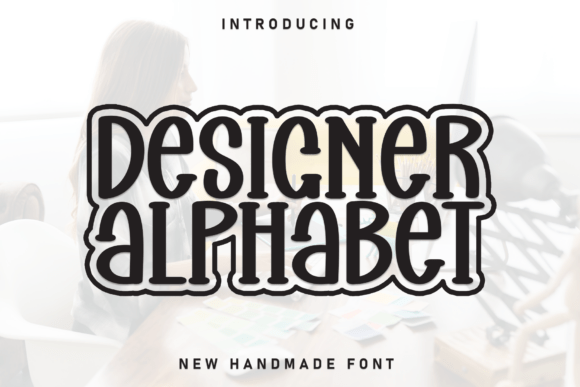
The Power of Handmade Typography: Introducing the Designer Alphabet Font
Have you ever stared at a blank page, waiting for inspiration to strike, only to be hit with a wave of creativity the moment you pick up a pencil and start doodling? That’s exactly what happens when you unleash the full potential of the Designer Alphabet Font – a bold, handmade display typeface that radiates creativity and character.
This versatile font is perfect for designers seeking to add a unique handcrafted touch to their work, from branding and posters to logos and social media graphics. With its hand-drawn charm, thick strokes, and outlined shadow effect, the Designer Alphabet Font brings a playful yet modern energy to any design project. Its clean curves paired with the artistic touch make it a reliable choice for designers aiming to infuse their work with originality and bold personality.
Designer Alphabet Font Key Features
- Font Family: The Designer Alphabet Font is available in a single font family, making it easy to use across various applications.
- Character Set: The font includes a comprehensive set of uppercase and lowercase letters, numbers, and special characters, making it suitable for a wide range of applications.
- Unique Characteristics: The Designer Alphabet Font features a unique, hand-drawn design with subtle flourishes and rounded edges, giving it a distinctive and eye-catching appearance.
Designer Alphabet Font Review
Overall, I think the Designer Alphabet Font has a lot of potential, but it falls short in a few areas. Let’s dive in and take a closer look.
- The font has a unique and playful feel that could add a lot of personality to a design.
- The bold and italic styles are well-implemented, and the font is highly legible at a range of sizes.
- The font is fully scalable, which means it can be used effectively in both print and digital designs.
- The font’s lack of subtlety can be overwhelming in some designs, making it difficult to read in large blocks of text.
- The font is not optimized for certain languages, which could limit its use in global designs.
While the Designer Alphabet Font has its strengths, its limitations hold it back from being a top-tier font. With a bit more refinement, it could be a great addition to any designer’s toolkit. As it stands, I’d recommend it for use in small doses or as an accent font.
Tips for Getting the Most Out of the Designer Alphabet Font
Experiment with different font sizes, colors, and combinations to achieve a unique look.
Use the Designer Alphabet Font in conjunction with other design elements, such as images and graphics, to create a visually appealing design.
The Designer Alphabet Font is ideal for:
- Brand identity design
- Event signage and banners
- Editorial and magazine design
Alternatives to “Designer Alphabet Font”
Playfair Display is a luxurious, high-end serif font ideal for titles and headings. It features elegant connections between letters, making it perfect for formal invitations, luxury branding, and high-end advertising. Compared to Designer Alphabet Font, Playfair Display has a more refined and sophisticated look, making it suitable for high-end design projects.